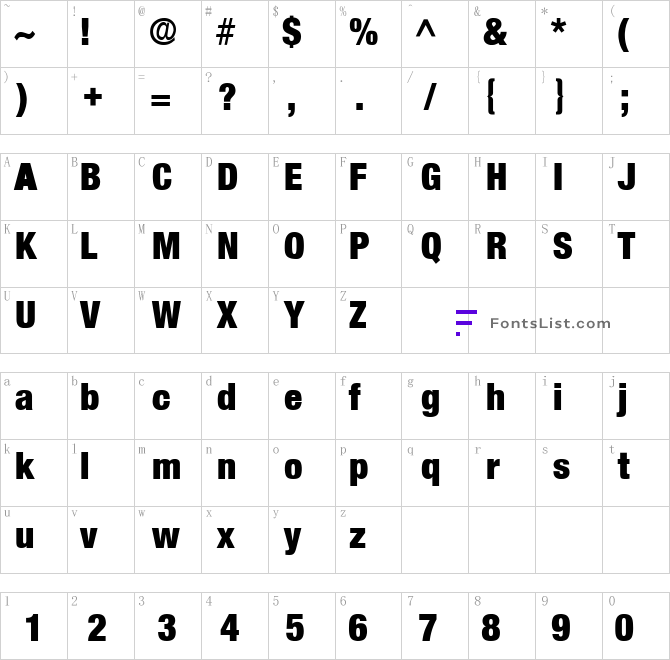
- Font Name:Acmo Display SSi
Acmo-Display-SSi-Normal.ttf is a very beautiful artistic font, Acmo-Display-SSi-Normal.ttf is widely used in the design and printing of various books and pictures,Acmo-Display-SSi-Normal.ttf has a strong visual impact,Acmo-Display-SSi-Normal.ttf is a commonly used font in newspapers, magazines and books, and is used in posters, e-commerce Poster design, store design, logo design, font design and other fields.Acmo-Display-SSi-Normal.